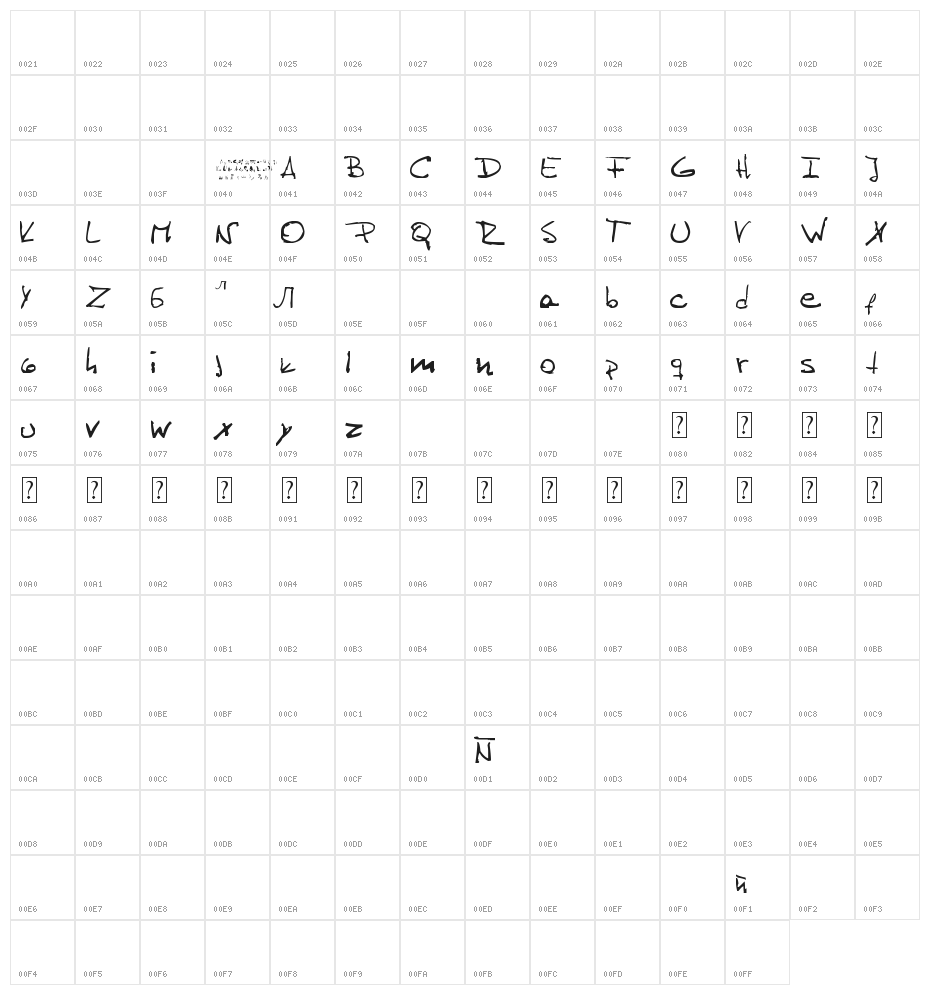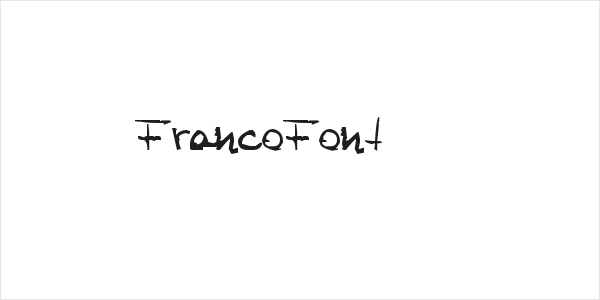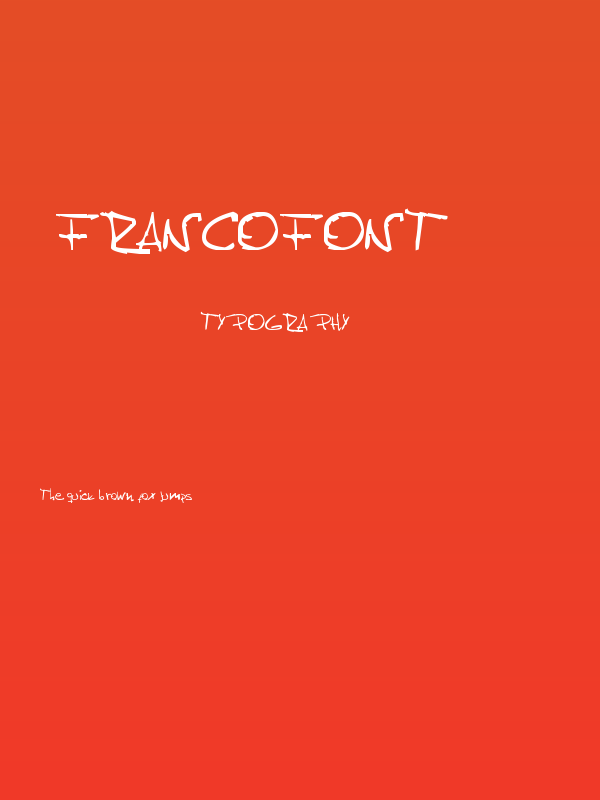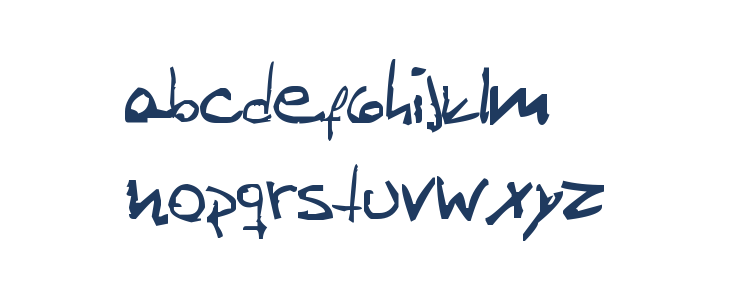
This font features a distinctive, edgy style with irregular strokes and a hand-drawn appearance. The uppercase letters are bold and dynamic, with varying line thicknesses that create a sense of movement and energy. The lowercase letters maintain this energetic style, with some characters having unique flourishes and extensions. The numbers and special characters are consistent with the overall aesthetic, adding to the font's playful yet slightly chaotic feel. This font is ideal for projects that require a bold, artistic touch.
| Use Case | Logos, Posters, Headlines |
| Proposed Projects | Ideal for artistic projects, edgy branding, album covers, and creative posters. |